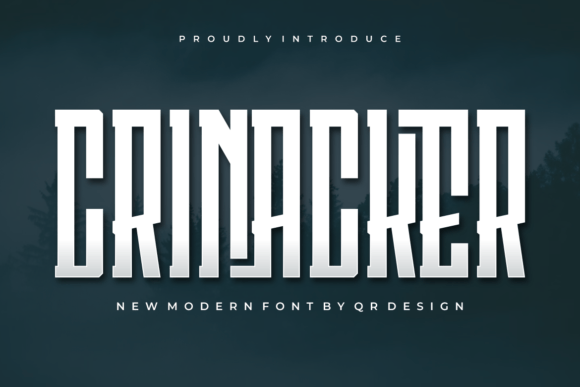
Unleash the Boldness: Crinacker Font – The Epitome of Strength and Authenticity
In a world of monotonous fonts, Crinacker Font emerges as a beacon of boldness and authenticity, a symphony of visual power that captivates the senses and commands attention. This slab serif masterpiece, meticulously crafted by qrdesignstd, is a testament to the transformative power of typography, capable of elevating your creative projects to unprecedented heights.
Step into the arena of gaming, where legends are forged and epic battles are waged. Crinacker Font stands as your unwavering ally, a font that embodies the intensity and exhilaration of the virtual realm. Its robust structure and unwavering presence lend themselves perfectly to gaming logos, titles, and user interfaces, ensuring that your creations radiate an aura of invincibility.
Beyond the realm of gaming, Crinacker Font's versatility knows no bounds. Its commanding presence graces t-shirt designs with an air of rugged individuality, while its athletic spirit shines through in sports-related branding, injecting a surge of adrenaline into every design. Unleash your creativity and explore the limitless possibilities that await with Crinacker Font as your trusted companion.
Crinacker Font possesses an innate ability to thrive in a multitude of contexts, effortlessly adapting to your diverse design needs. Its unwavering strength lends itself to headlines and titles, demanding attention and leaving an indelible mark on the minds of your audience. Whether you seek to craft striking posters, captivating social media graphics, or visually compelling advertisements, Crinacker Font stands ready to elevate your designs to new heights of brilliance.
Embrace the Power of Crinacker Font: A Typographic Revolution Awaits
With Crinacker Font at your disposal, the boundaries of creativity dissolve, and a world of boundless possibilities unfolds before you. This font is more than just a collection of letters; it's a gateway to a realm where your imagination reigns supreme. Transform your designs into captivating masterpieces that resonate with your audience on a profound level.
Crinacker Font is not merely a font; it's an experience, a journey into the depths of visual expression. Its bold and authentic character will ignite your passion for design, propelling you towards greatness. As you explore the limitless capabilities of this typographic marvel, you'll discover a newfound confidence in your creative abilities.
Don't settle for ordinary fonts that blend into the background. Embrace the unwavering boldness of Crinacker Font and watch as your designs transcend the mundane and ascend to the realm of the extraordinary. Let your imagination run wild, explore uncharted creative territories, and leave an enduring legacy through the power of Crinacker Font.